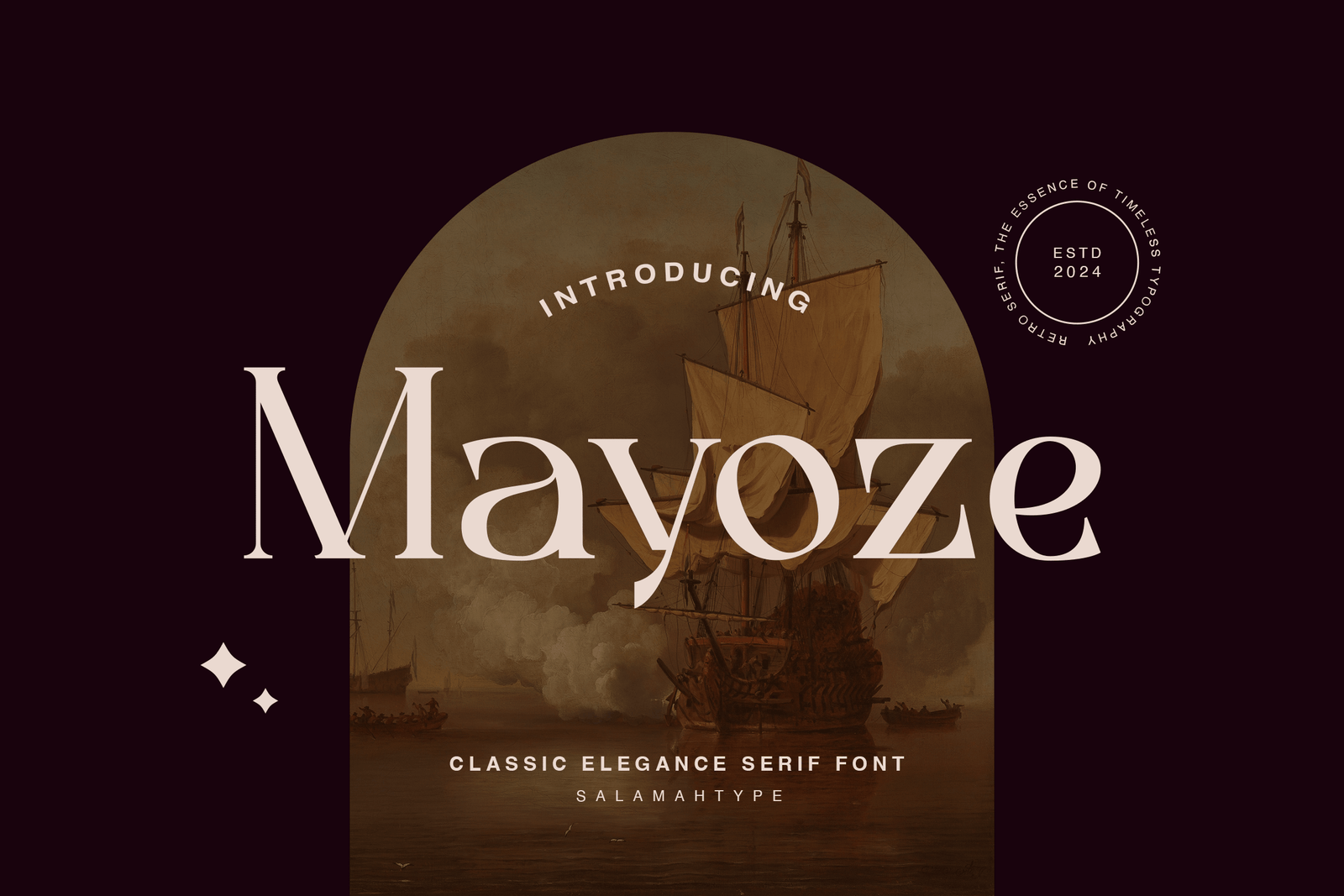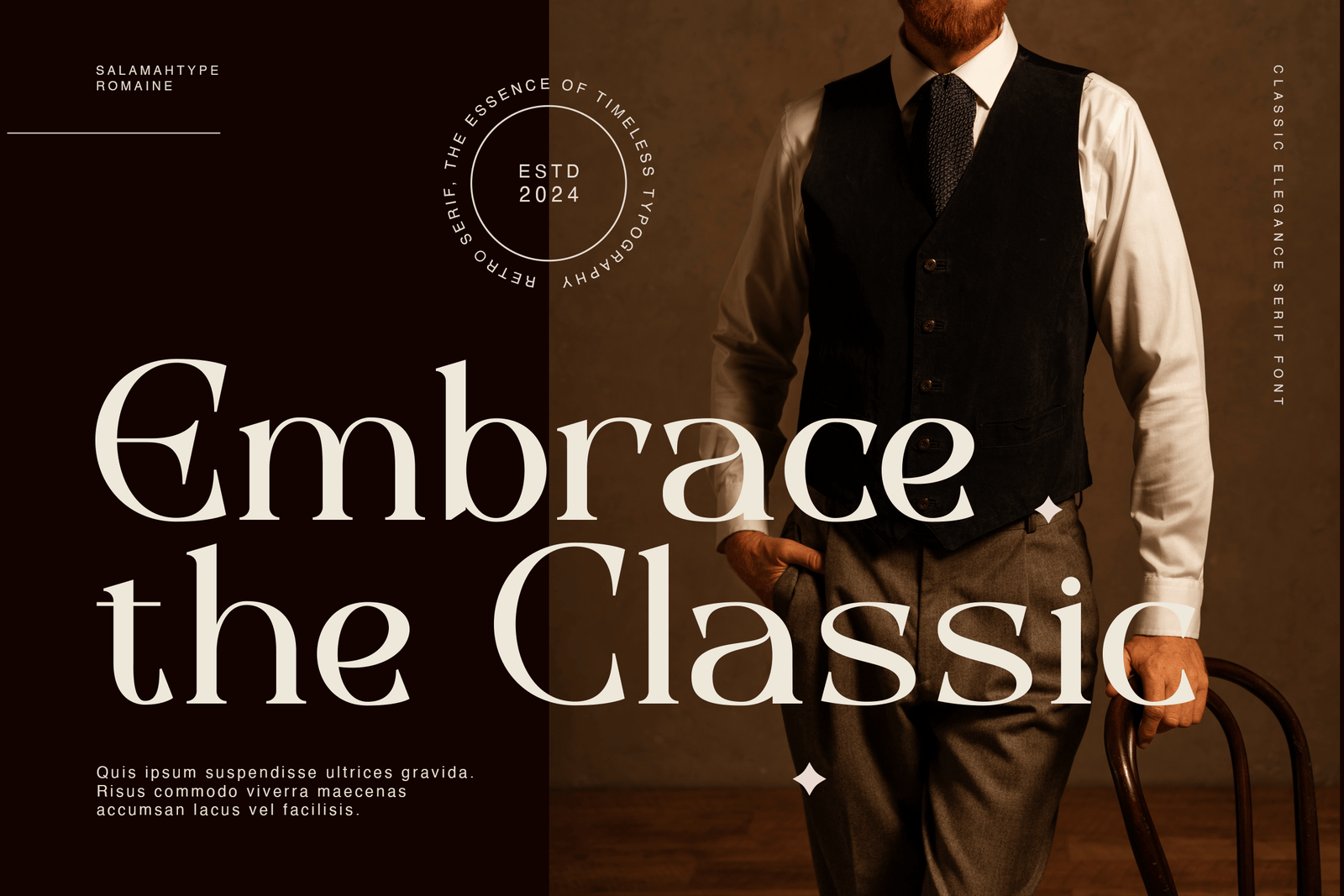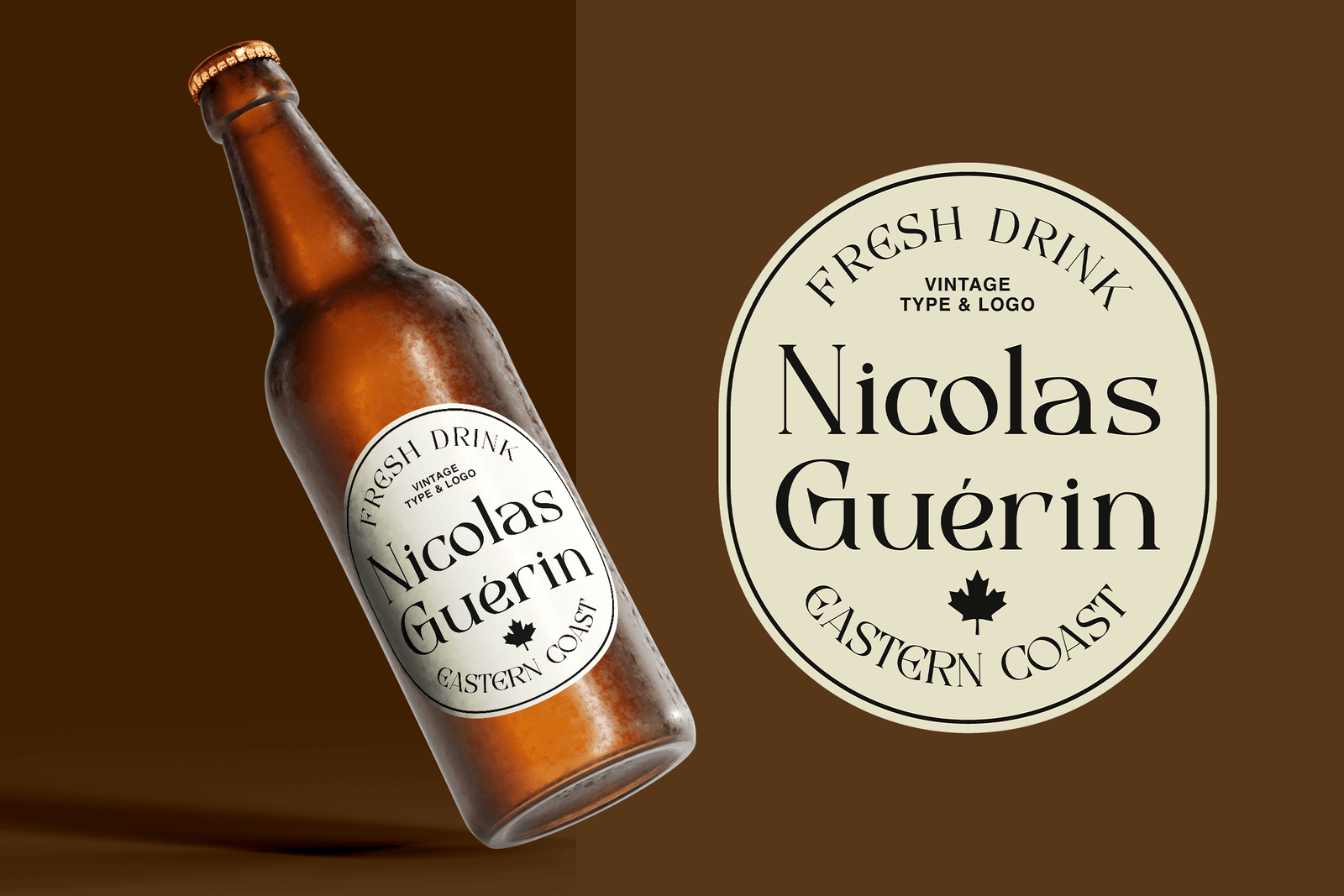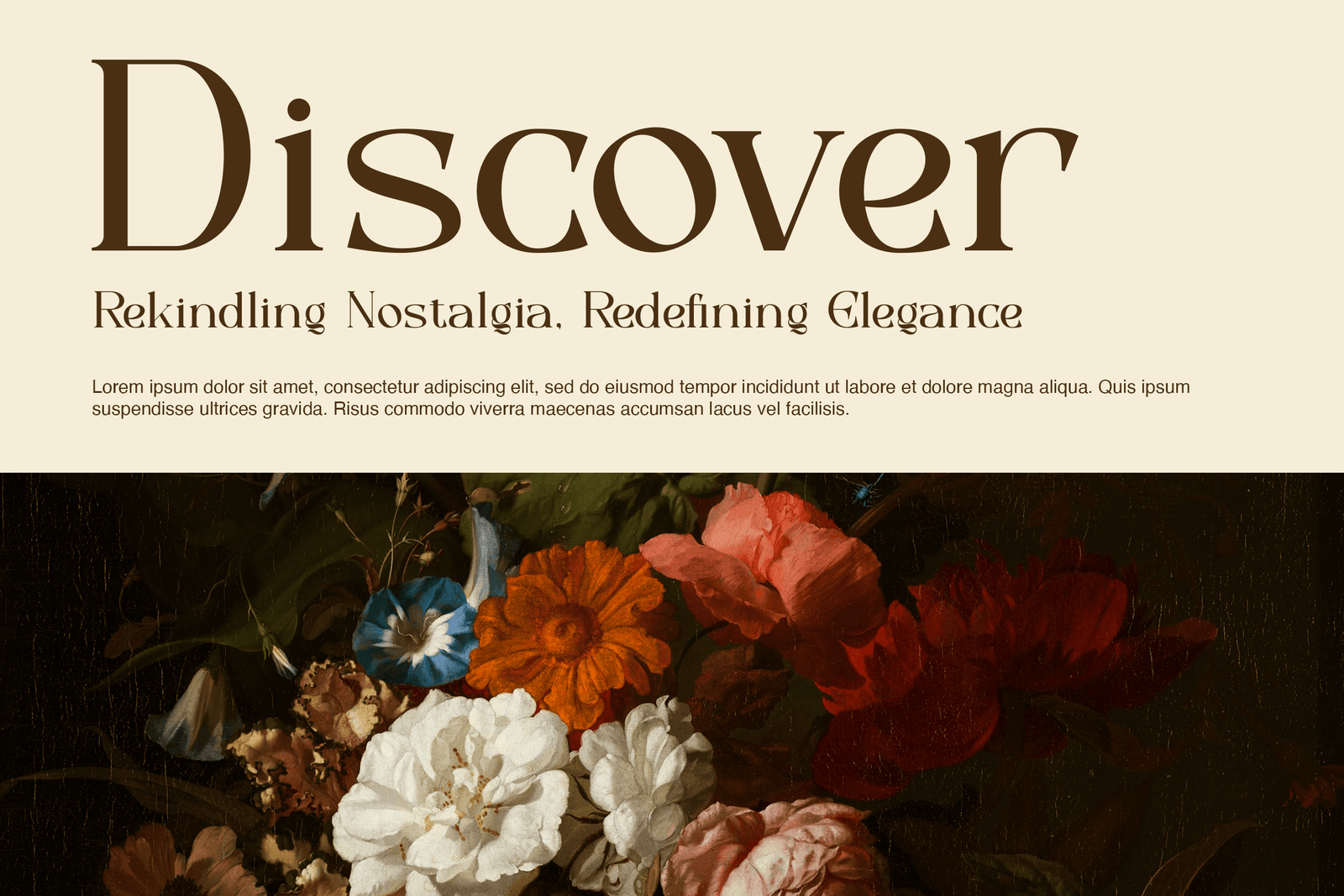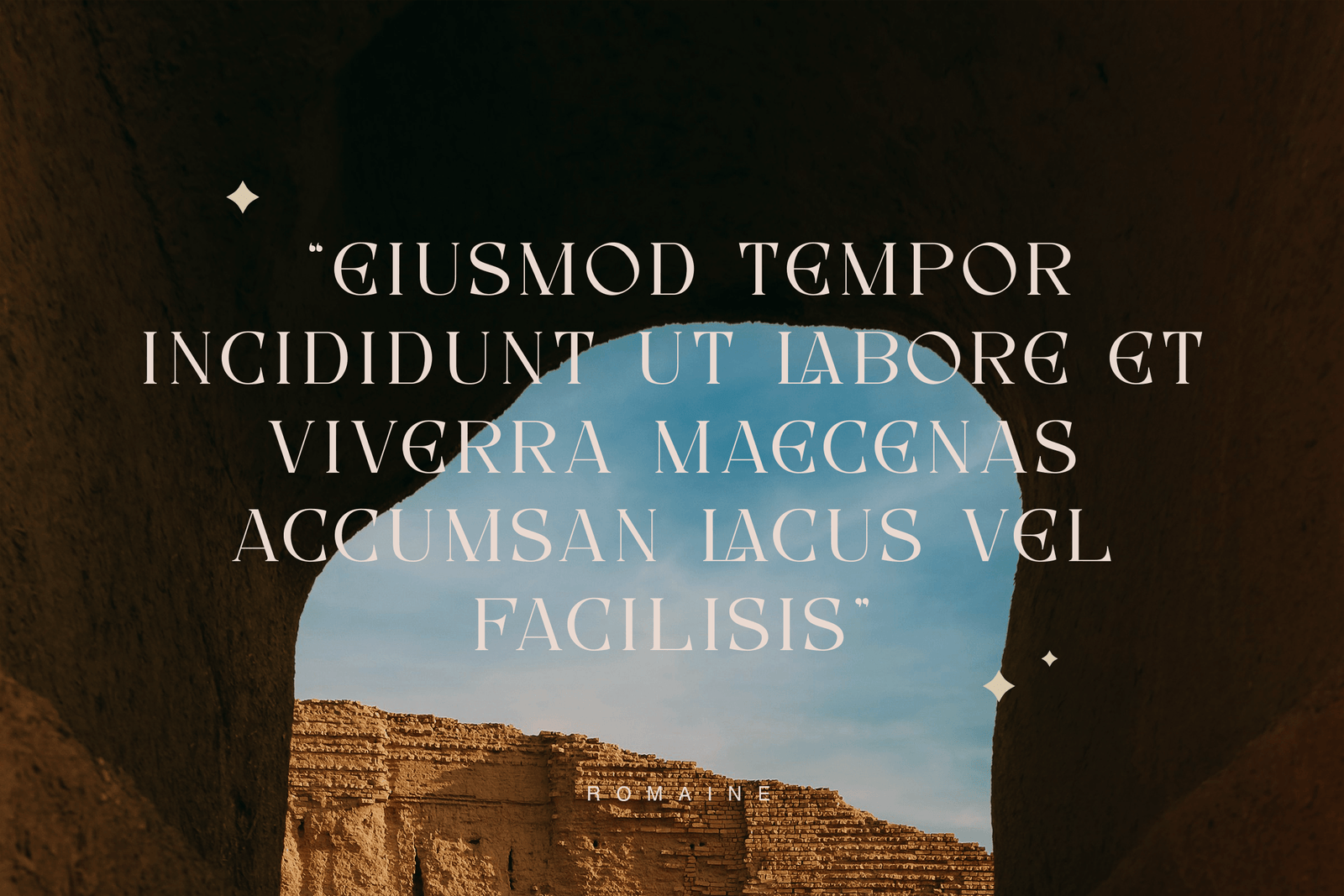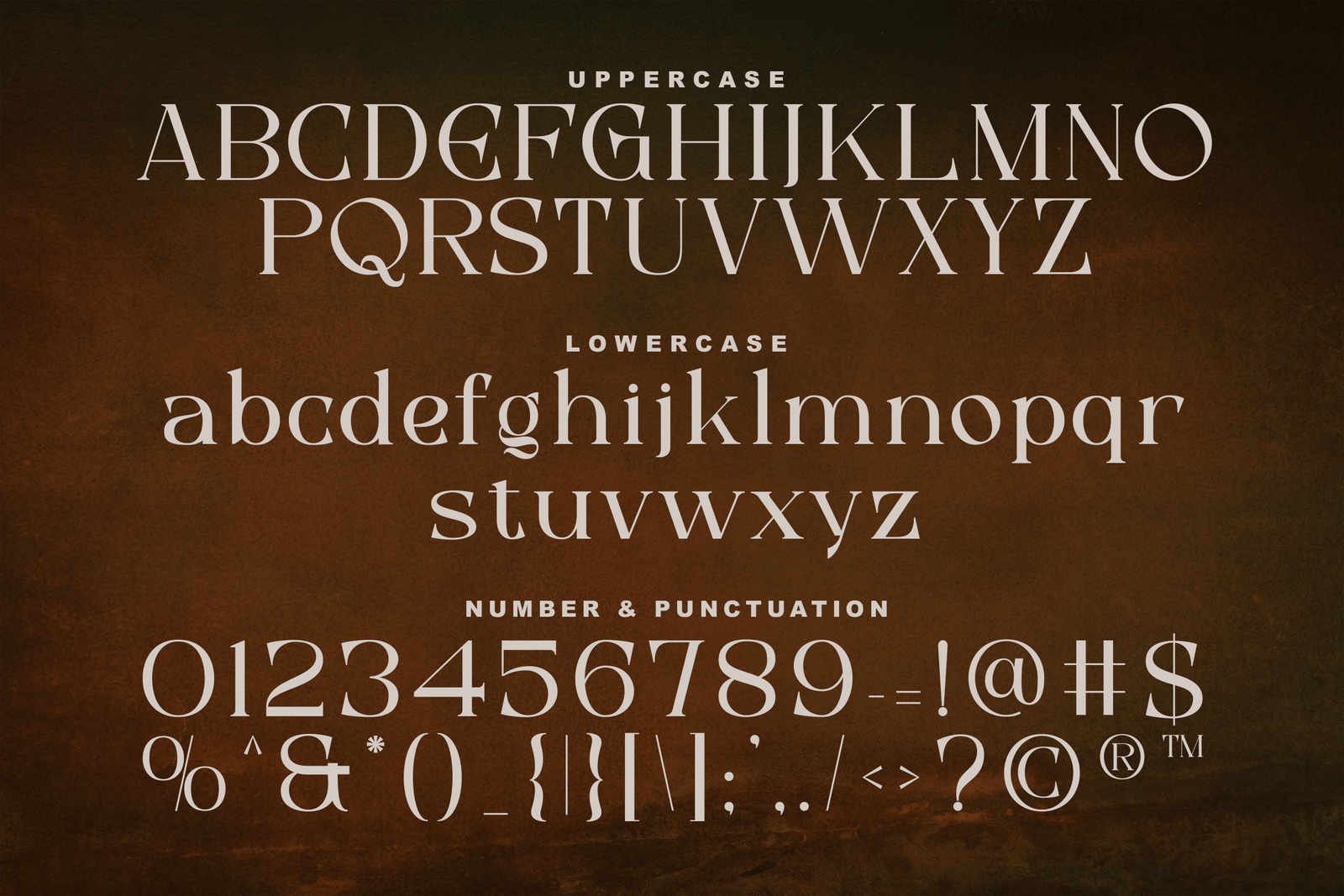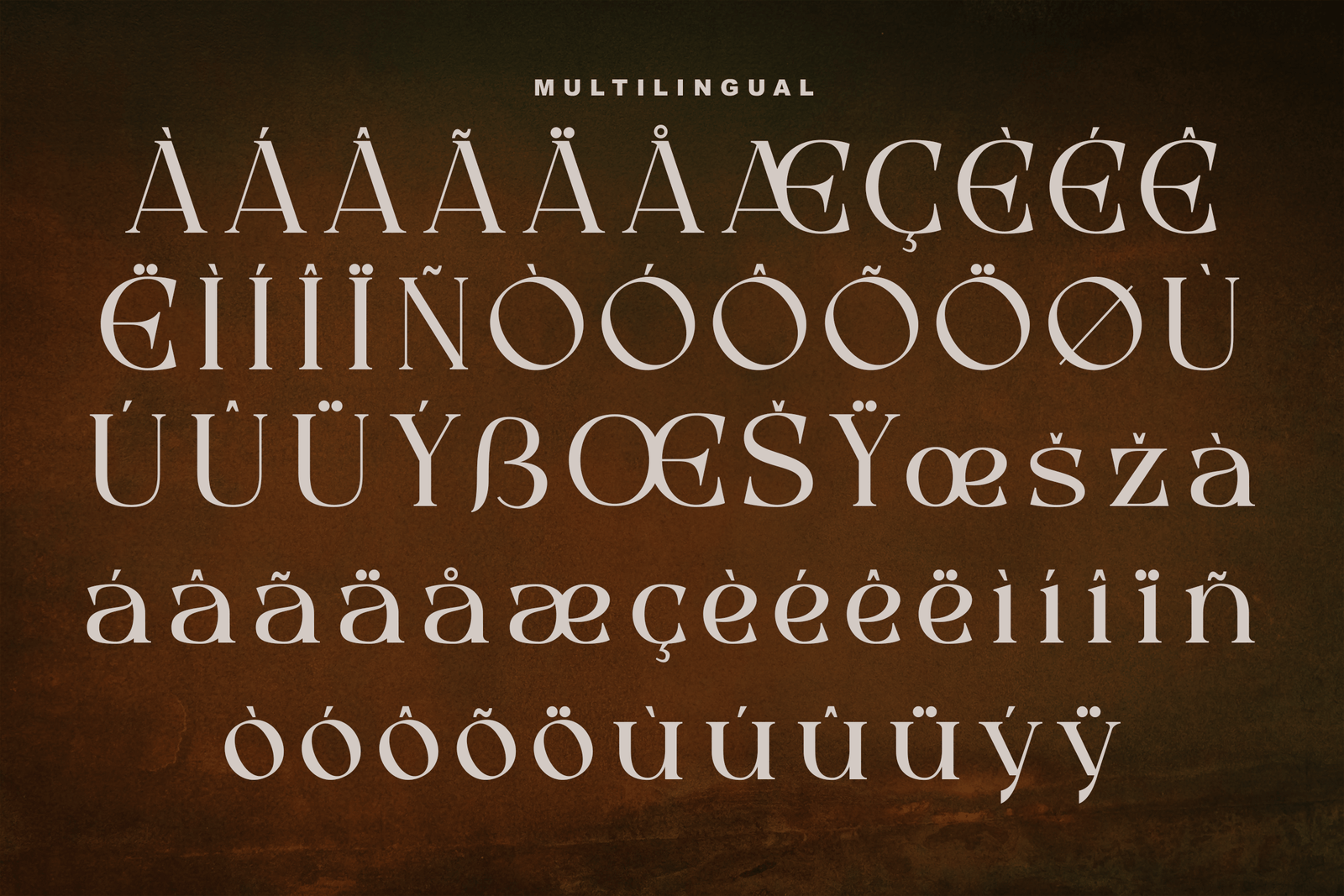
Mayoze
About the Font
Mayoze" font is a type of serif font that embodies classic and elegant values. This font will appear beautifully from every unique angle and is generally suitable for logos, posters, magazines, product packaging, and any design requiring an elegant touch. The font comes equipped with multilingual support in OTF, TTF, and WOFF formats.Features:
• Uppercase
• Lowercase
• Numbers and punctuation
• Ligatures
• Multilingual support